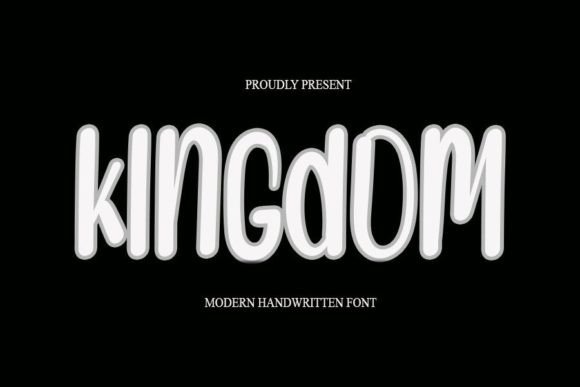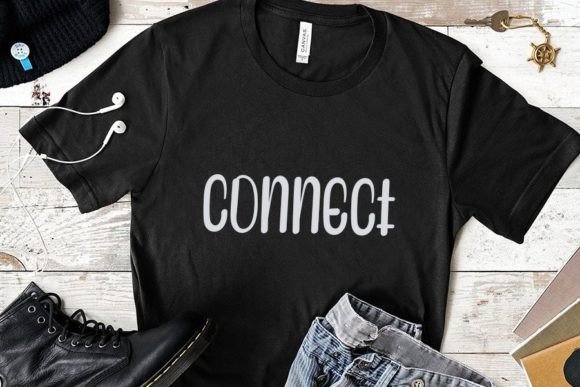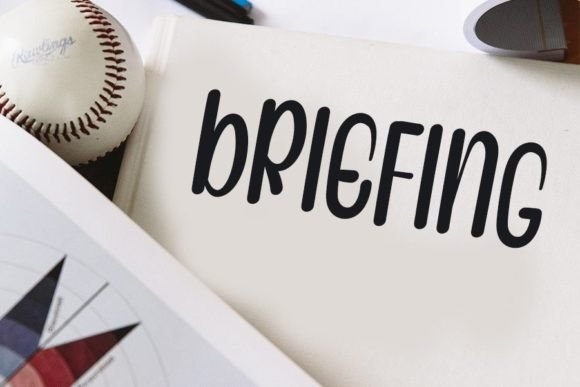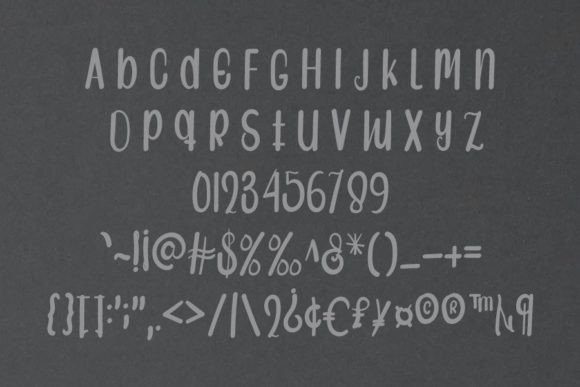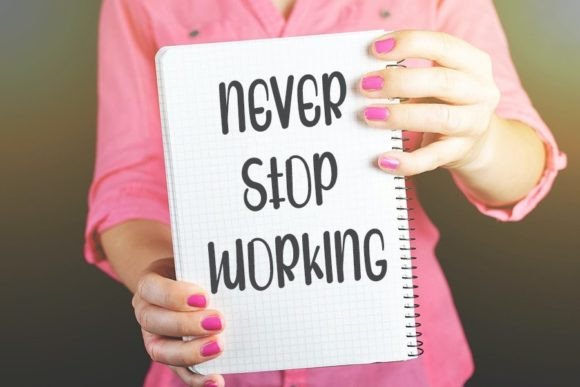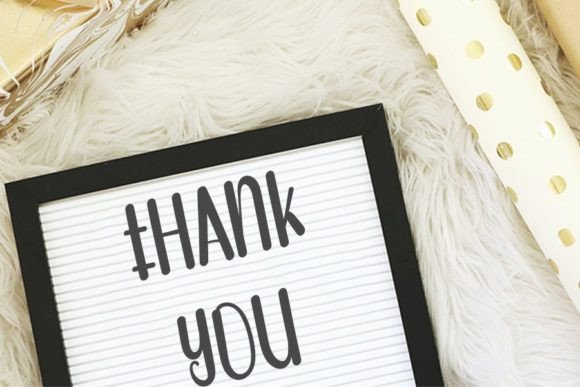
Kingdom Font
About Kingdom Font
“Kingdom” is not just a font; it’s a friendly handwritten typeface meticulously crafted to become a true favorite. With a harmonious blend of classy calligraphic influences and a contemporary, fresh feel, this font stands out as a versatile and appealing choice for various design applications.
The friendly and handwritten style of “Kingdom” infuses a personal touch into your designs, making it suitable for a range of creative projects. Whether you’re working on invitations, greeting cards, or branding materials, the font maintains a warm and approachable aesthetic, creating a welcoming atmosphere.
“Kingdom” retains classy calligraphic influences, contributing to its elegance and sophistication. This makes the font an excellent choice for projects that demand a touch of refinement, such as upscale events, luxury branding, or any design where a tasteful and stylish appearance is desired.
The careful design of “Kingdom” manages to strike a balance between traditional calligraphic elements and a contemporary, fresh vibe. This versatility allows the font to adapt seamlessly to various design contexts, making it a reliable choice for both classic and modern design projects.
In branding or headlines, “Kingdom” can create a visual impact that is both memorable and inviting. Its handwritten charm adds authenticity to your messaging, establishing a connection with your audience by conveying a sense of friendliness and approachability.
Whether applied to digital or print media, “Kingdom” remains a true favorite for designers seeking a font that combines warmth with sophistication. Its meticulous design ensures readability and aesthetic appeal across a diverse range of applications.
In summary, “Kingdom” is more than just a font; it’s a carefully crafted and friendly handwritten typeface that seamlessly marries classy calligraphic influences with a contemporary and fresh feel. As a versatile favorite, it adds a personal and stylish touch to your designs, making it well-suited for a variety of creative projects.